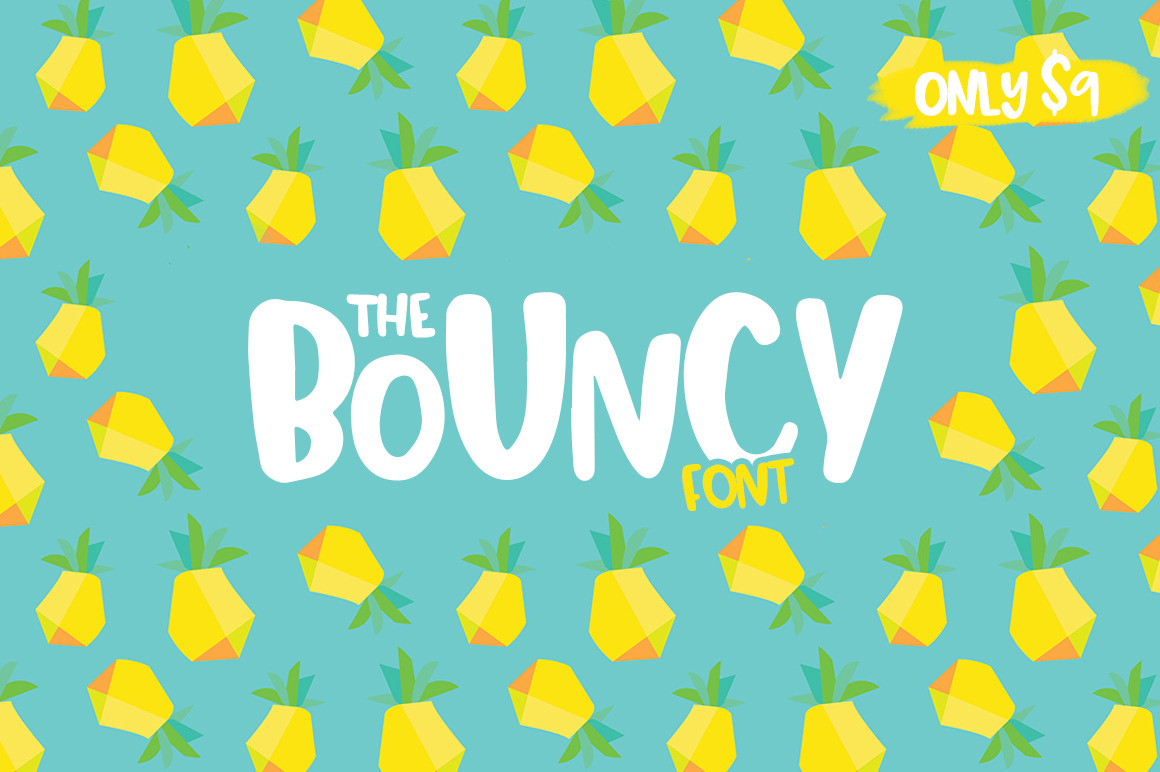
The Bouncy Font
Be sure to check out our latest typeface aptly named "The Bouncy Font". This cute new hand drawn font is priced at ONLY $9. It is fully accessible and available for use to all users, across a wide range of programs including Microsoft Word, Powerpoint, Cricut, Silhouette and many more.